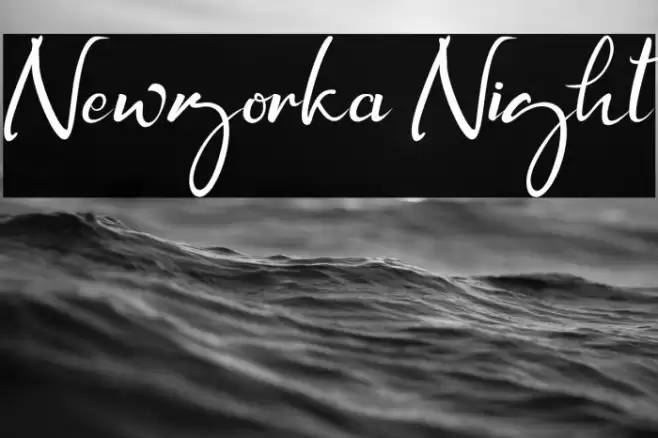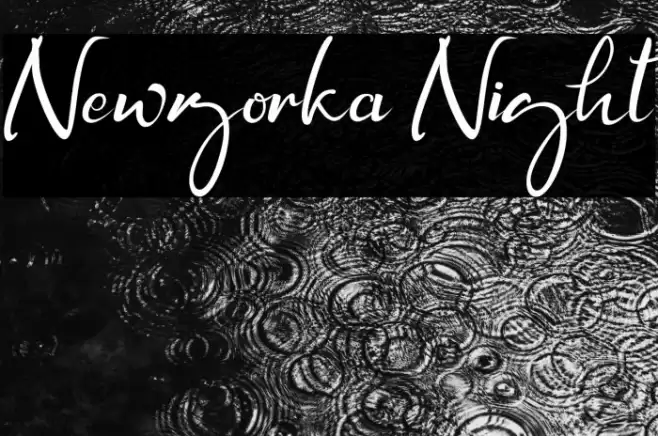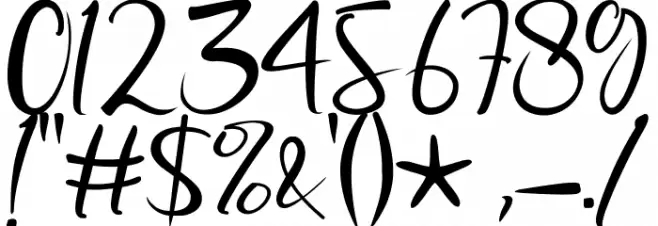
Newyorka Night Font
Newyorka Night Description
This font exudes a dynamic and elegant script style, characterized by fluid, cursive strokes that convey a sense of motion and grace. The uppercase letters are bold and sweeping, with a distinctive flair that adds a touch of sophistication. The lowercase letters maintain a consistent flow, enhancing readability while preserving the artistic quality. Numbers and special characters are crafted with the same attention to detail, ensuring a cohesive look across all elements. The overall design is both stylish and versatile, making it suitable for a variety of creative applications.
A dynamic and elegant script font with fluid, cursive strokes from Regular fonts.
- Proposed Projects: Ideal for wedding invitations, branding, logos, and elegant stationery.
- Overall Style: Elegant
- Use Case: Logos, Invitations, Branding